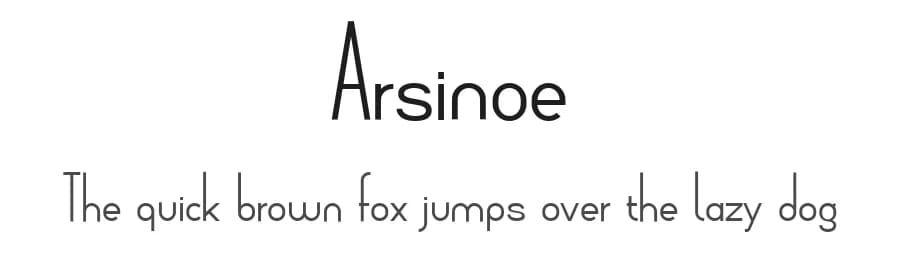
About Arsinoe Font
Arsinoe is a condensed geometric typeface noted for their unorthodox long ascenders and low x-height. Family consists of five different weights plus two special versions accompanied by their italic version. The Arsinoe type family includes extended Latin characters, ligatures, lining figures, OSF (Old Style Figures), scientific inferiors and many OpenType features. From poster design to editorial layout, Arsinoe is intended for a wide range of uses but use in small sizes are not recommended.
| Designer | Pawel Burgiel |